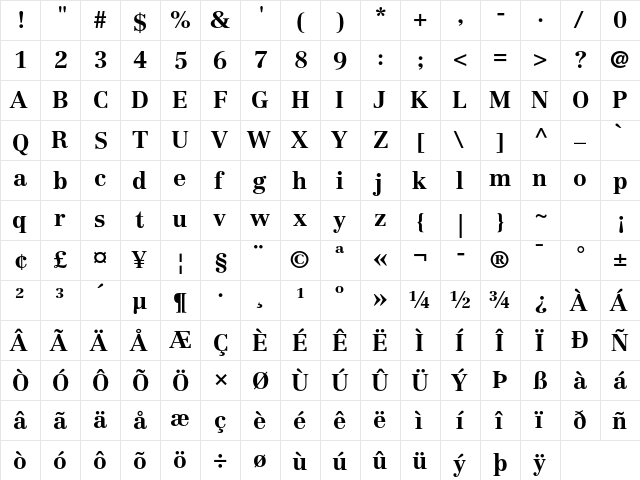
Centennial LT Std 75 Bold
75 Bold ·  Adrian Frutiger ·
DesignerAdrian Frutiger
Design Context for Centennial LT Std Typeface
Centennial LT Std takes a measured approach to typography — its balanced proportions and neutral character make it a reliable workhorse for both digital and print work. The heavy weight commands attention and anchors typographic hierarchies.